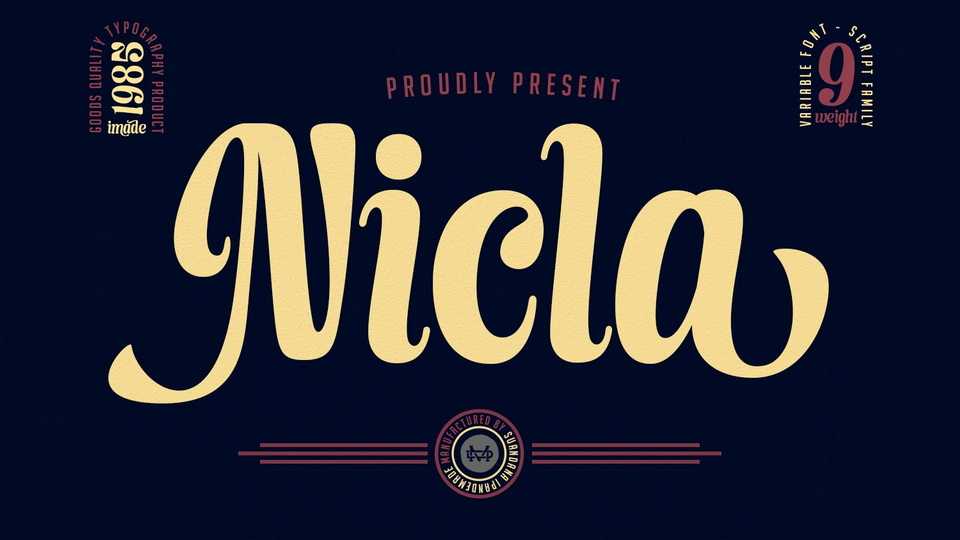
Download Nicla font, a brand new beautiful script typeface with fancy ligatures. Use this beautiful font for all your designs project, event and more.
Designer: TypeClassHeroes